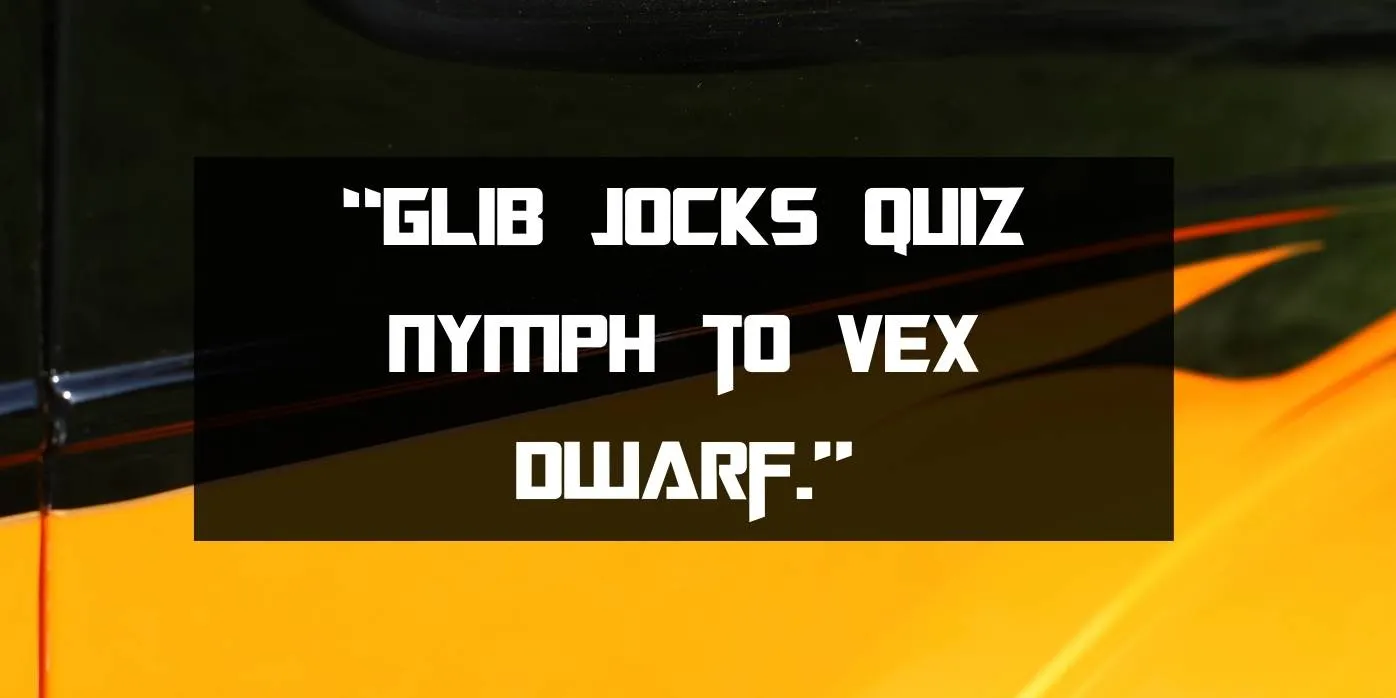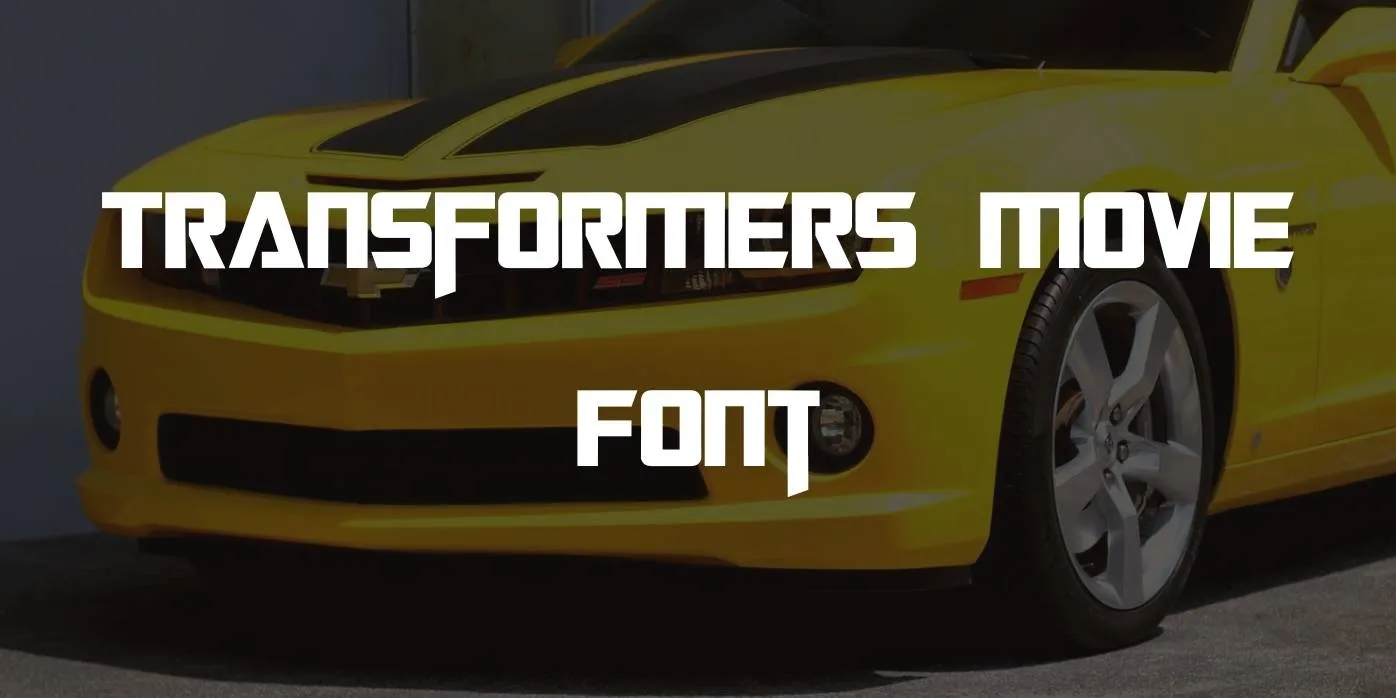
Transformers Movie Font
Transformers Movie Font belongs to the display typeface. This cute typeface was developed by Alphabet & type. A very famous movie Transformers was released in the year 2007. Michael Bay is the director of this movie.
Many designers were inspired by this movie and made many graphics designs, fonts, and other stuff. This typeface is used for the logo of this movie. Conspiracy Font is alternative to this typeface According to the designer, this font was specifically designed for that movie. This typeface has unique features with a touch of futuristic taste.
It is a 2007 American science fiction action film based on the Transformers toy line created by Hasbro. This typeface consists of more than 216 outstanding characters.